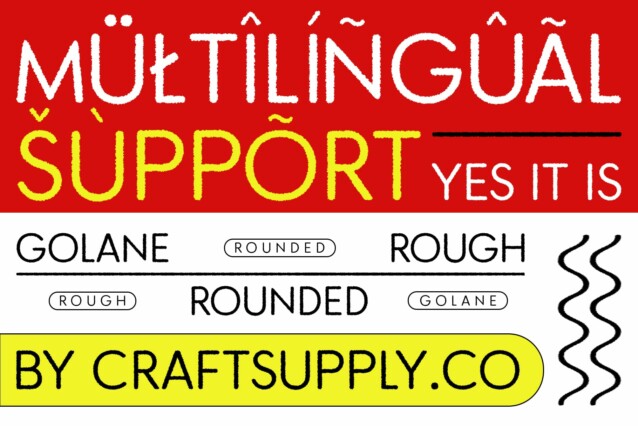
Golane Rounded Rough Font
Golane Rounded Rough Font is a modern sans serif font that features rounded shapes and a unique rough effect. The rounded letterforms provide a friendly and approachable feel, perfect for adding warmth and charm to your designs.
Rough Effect for Added Character
The rough effect introduces a textured element that adds character and uniqueness to the font. This combination of clean, rounded shapes with a rustic touch creates a distinctive and memorable look.